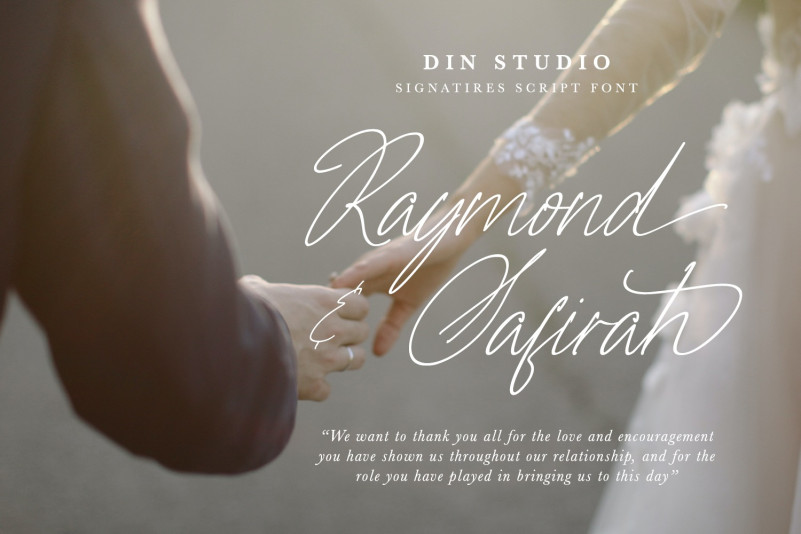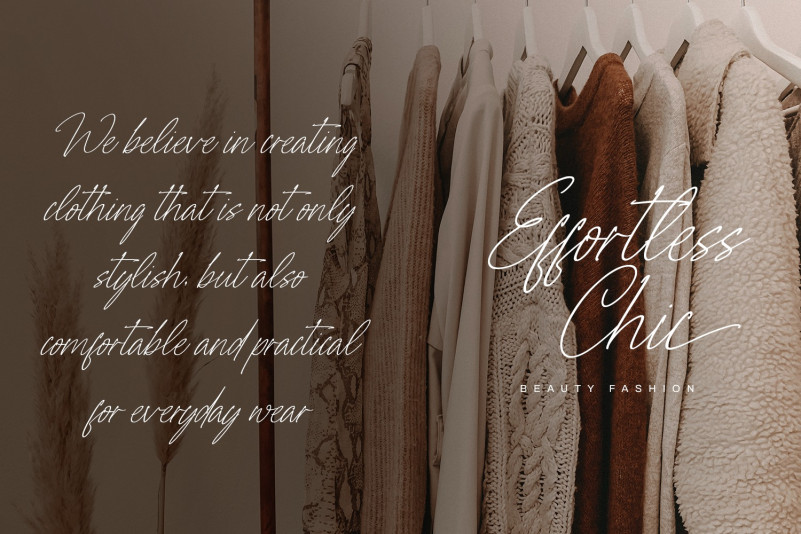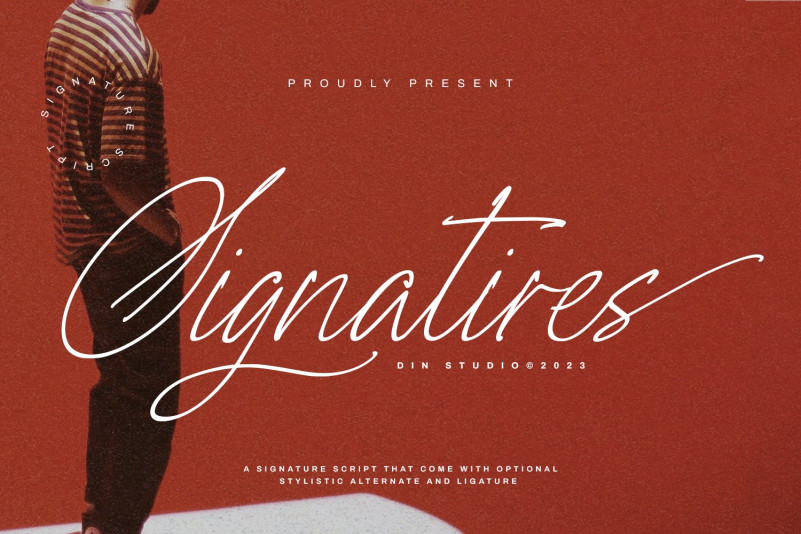
Signatires Font
Are you looking for a unique signature font to show your style? We have the right signature font for you. This is the Signatires Font , our signature font to help you create a visually amazing signature. This font is carefully designed to express elegant, dazzling characters which also helps you deliver your messages easily. Signatires’ contrast is high with swinging end wipes. Furthermore, its legibility is so great that it is suitable to apply for any text sizes. You can enjoy the available features here as well.